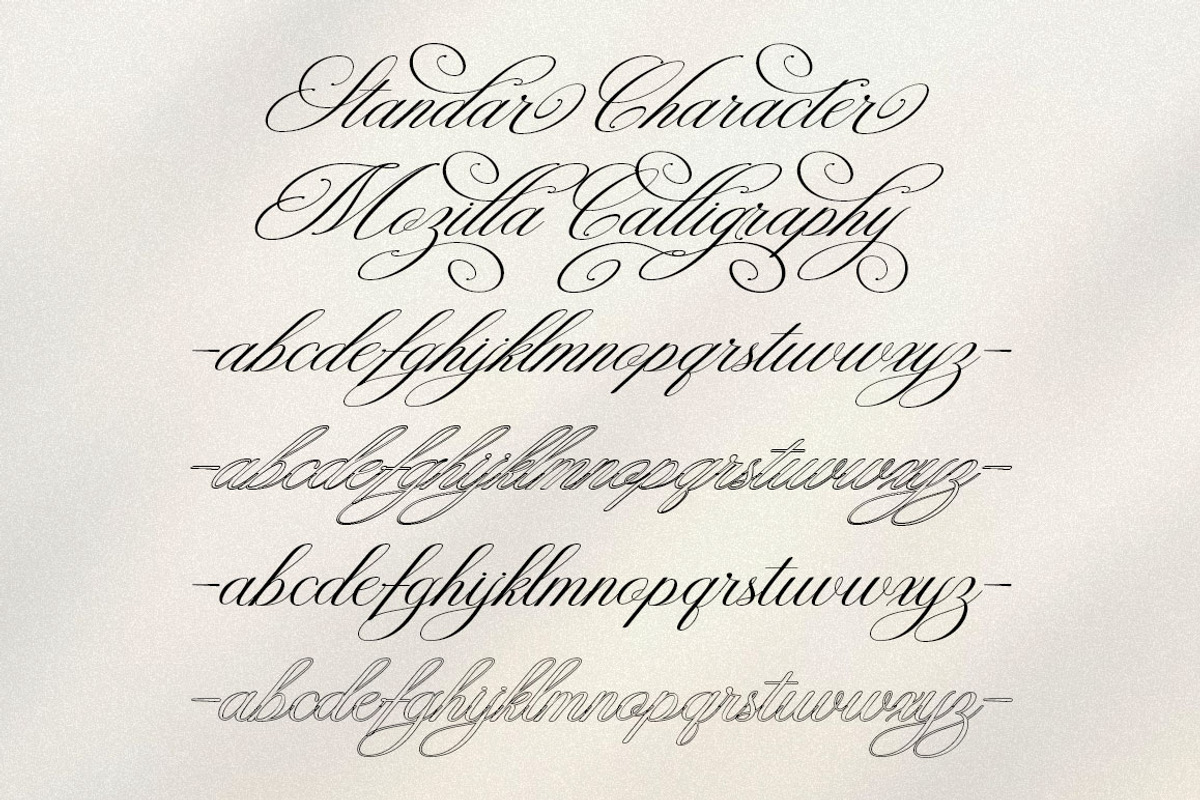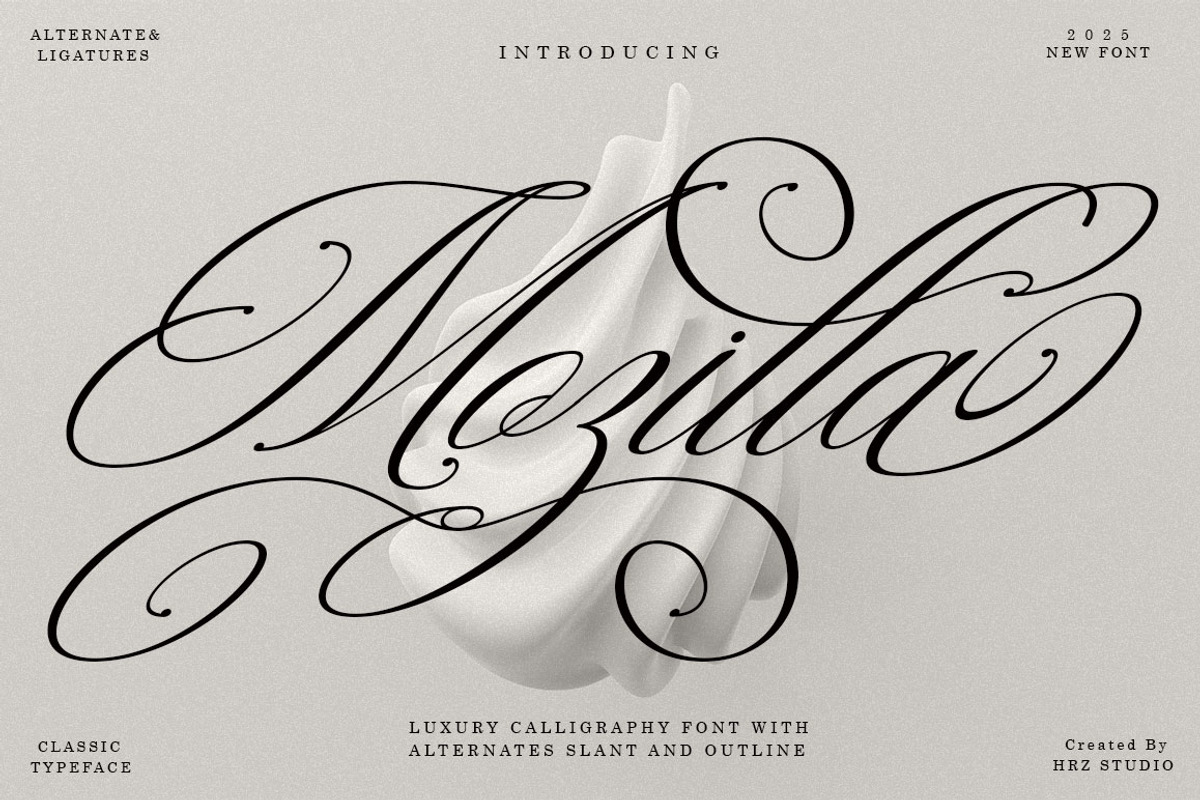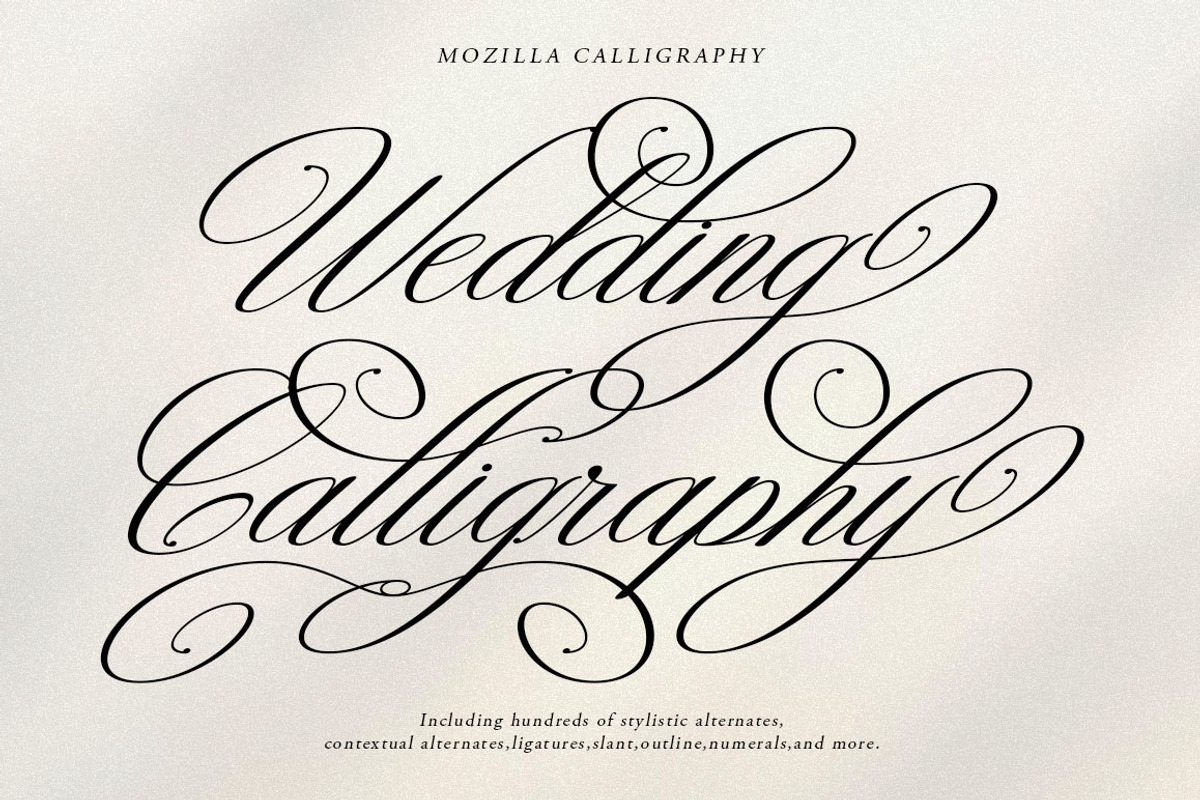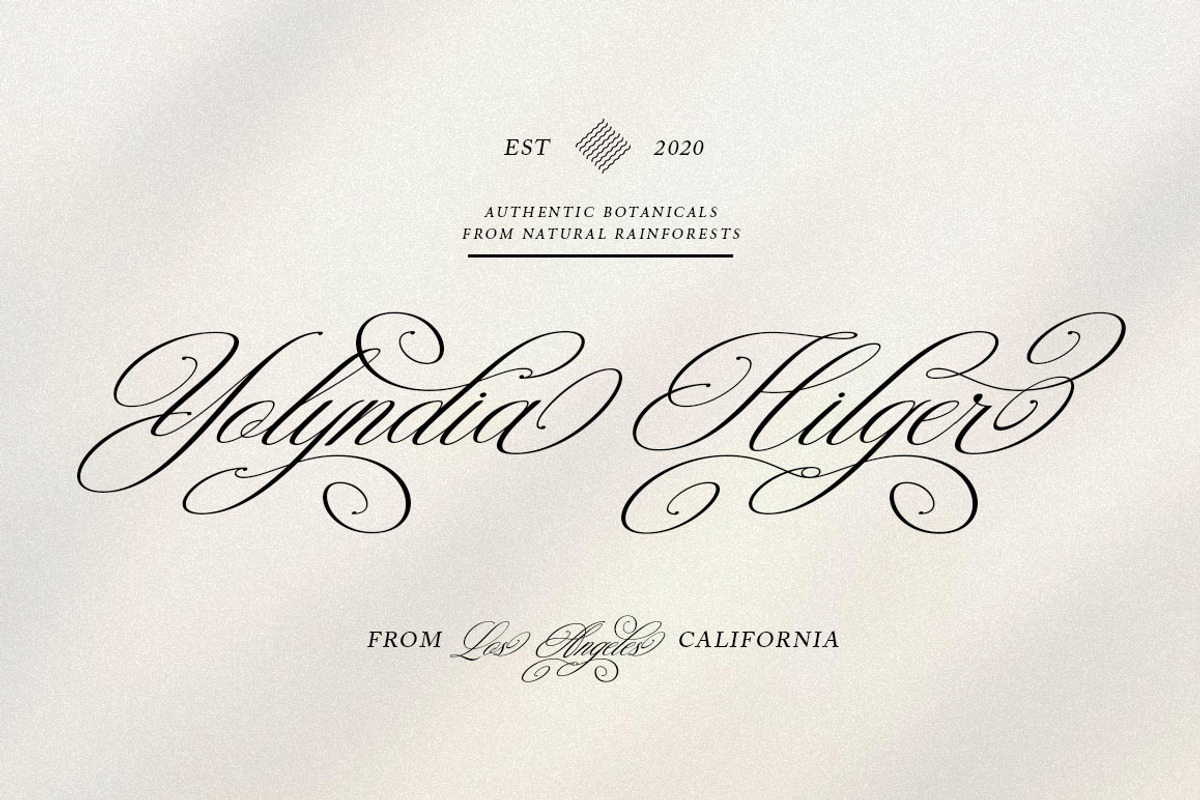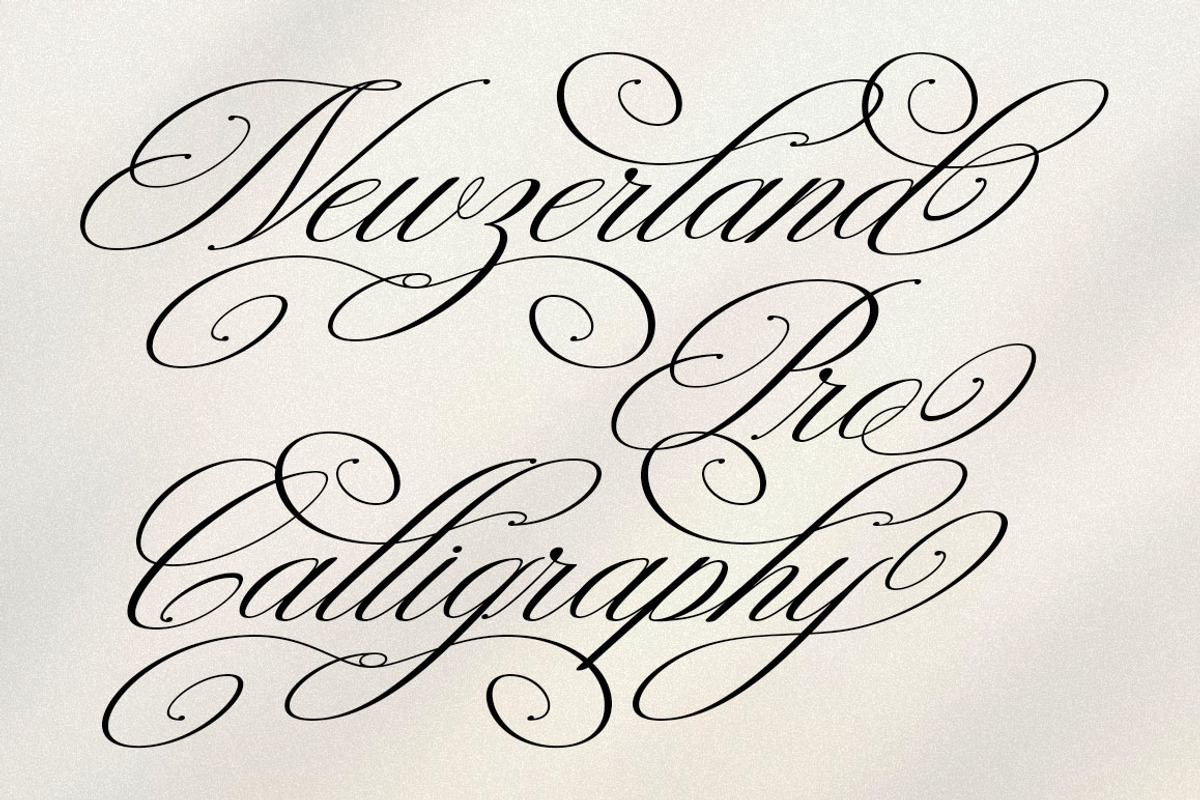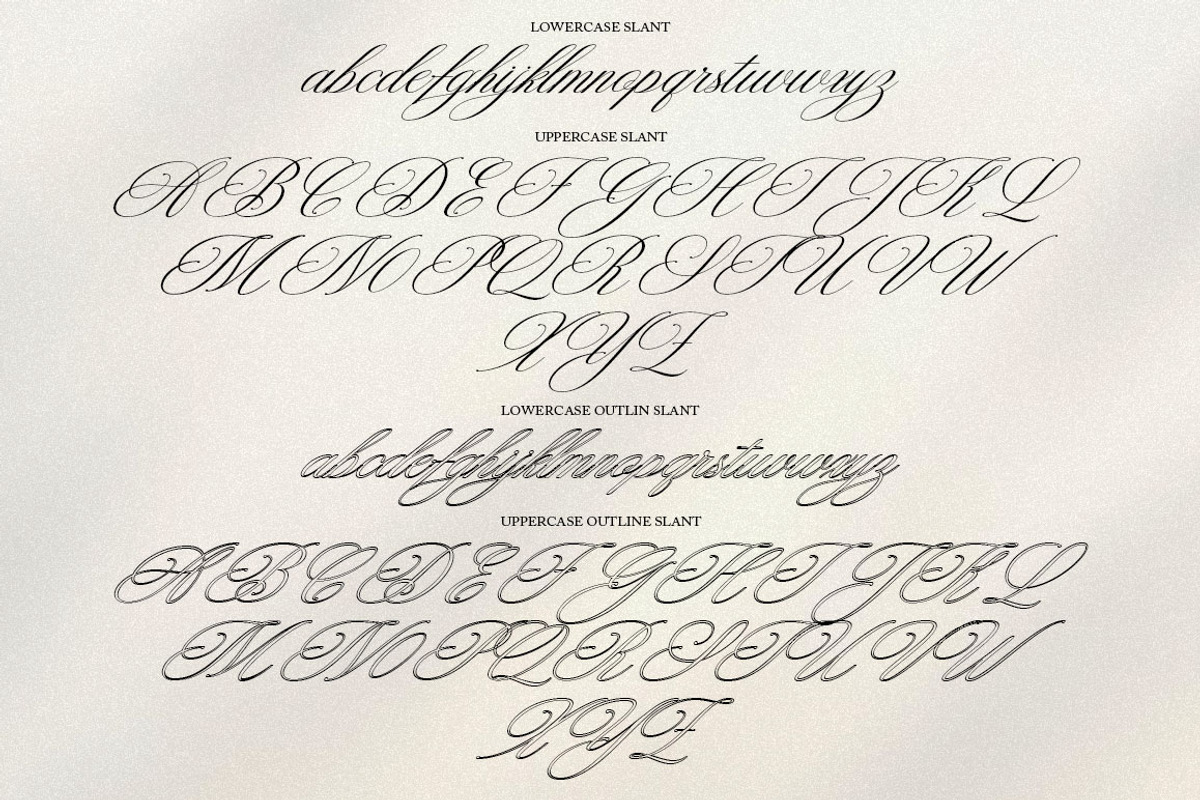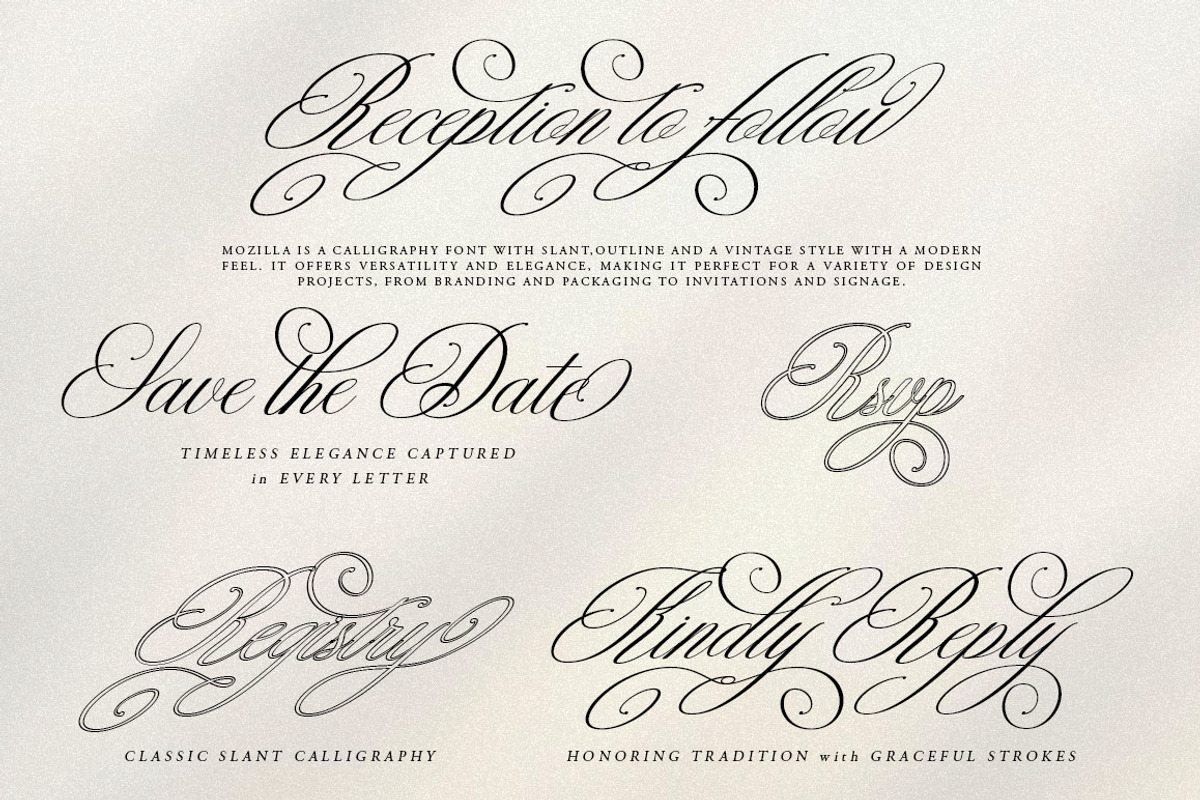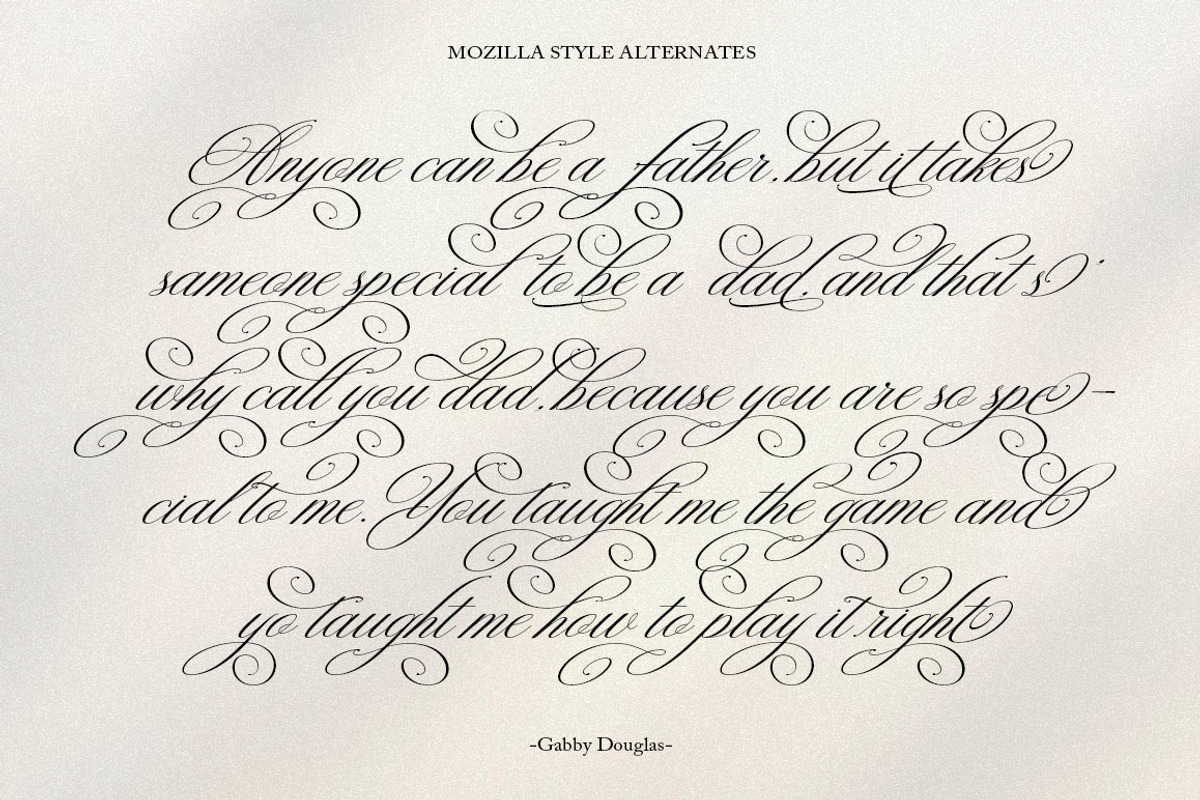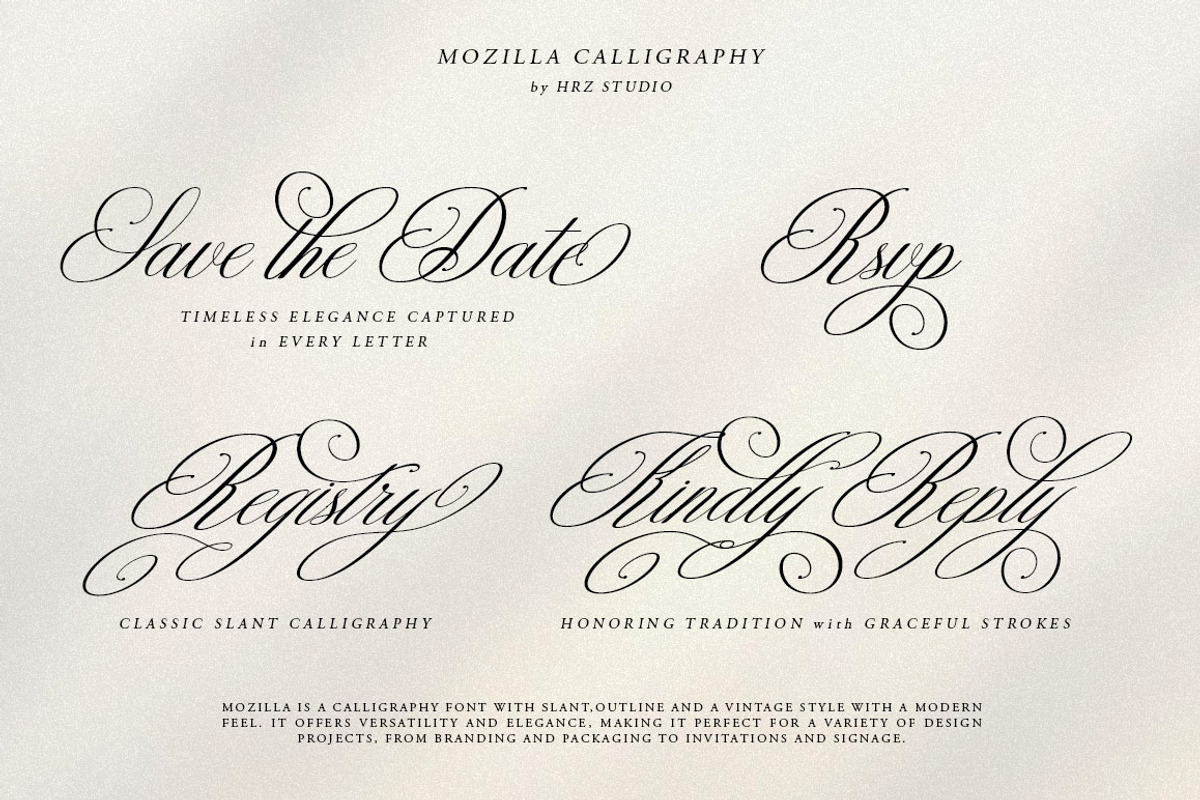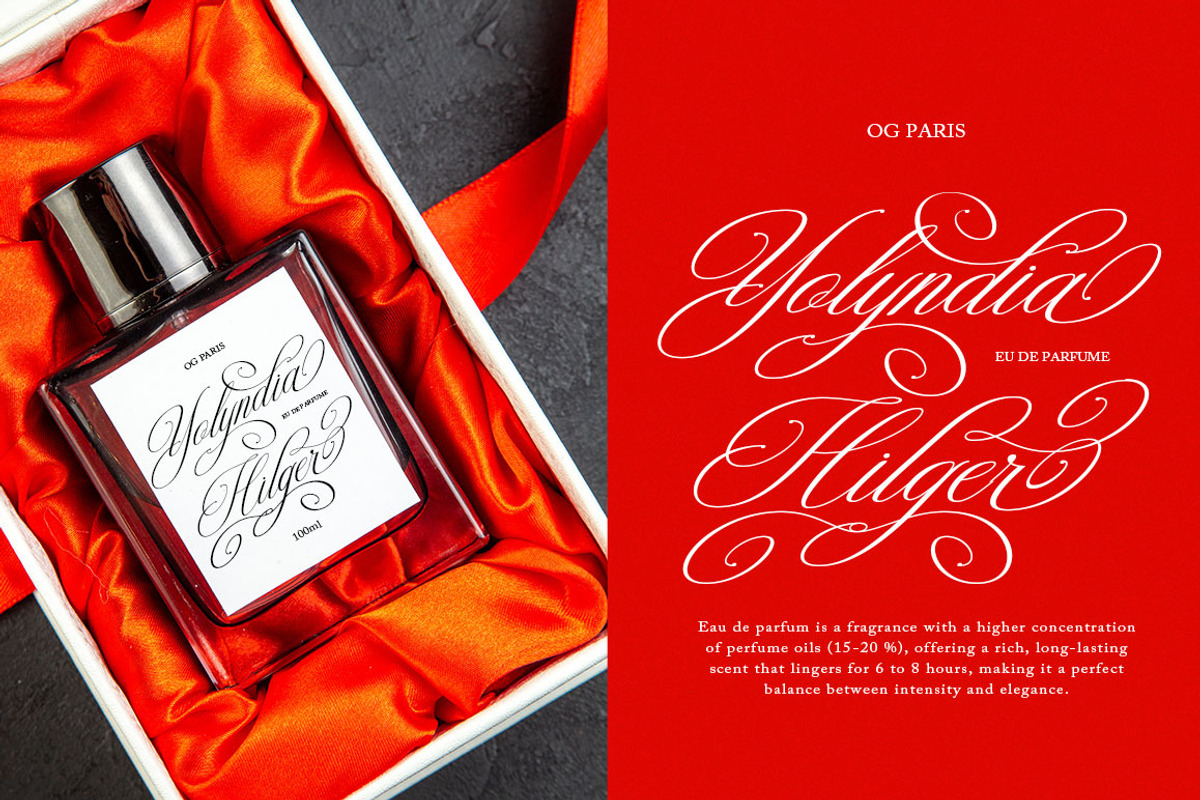
Mozilla Script
Mozilla Script is a calligraphy font that comes with very beautiful changing characters, a type of classic decorative copper script with a modern touch, designed with high detail to convey stylish elegance. Mozilla Script calligraphy is attractive because the typeface is smooth, clean, feminine, sensual, glamorous, simple and very easy to read, due to the many fancy letter connections. I also offer a number of viable style alternatives for many letters. The classic style is very suitable to be applied in various formal forms such as invitations, labels, restaurant menus, logos, fashion, make up, stationery, novels, magazines, books, greeting/wedding cards, packaging, labels or all kinds of advertising purposes. .